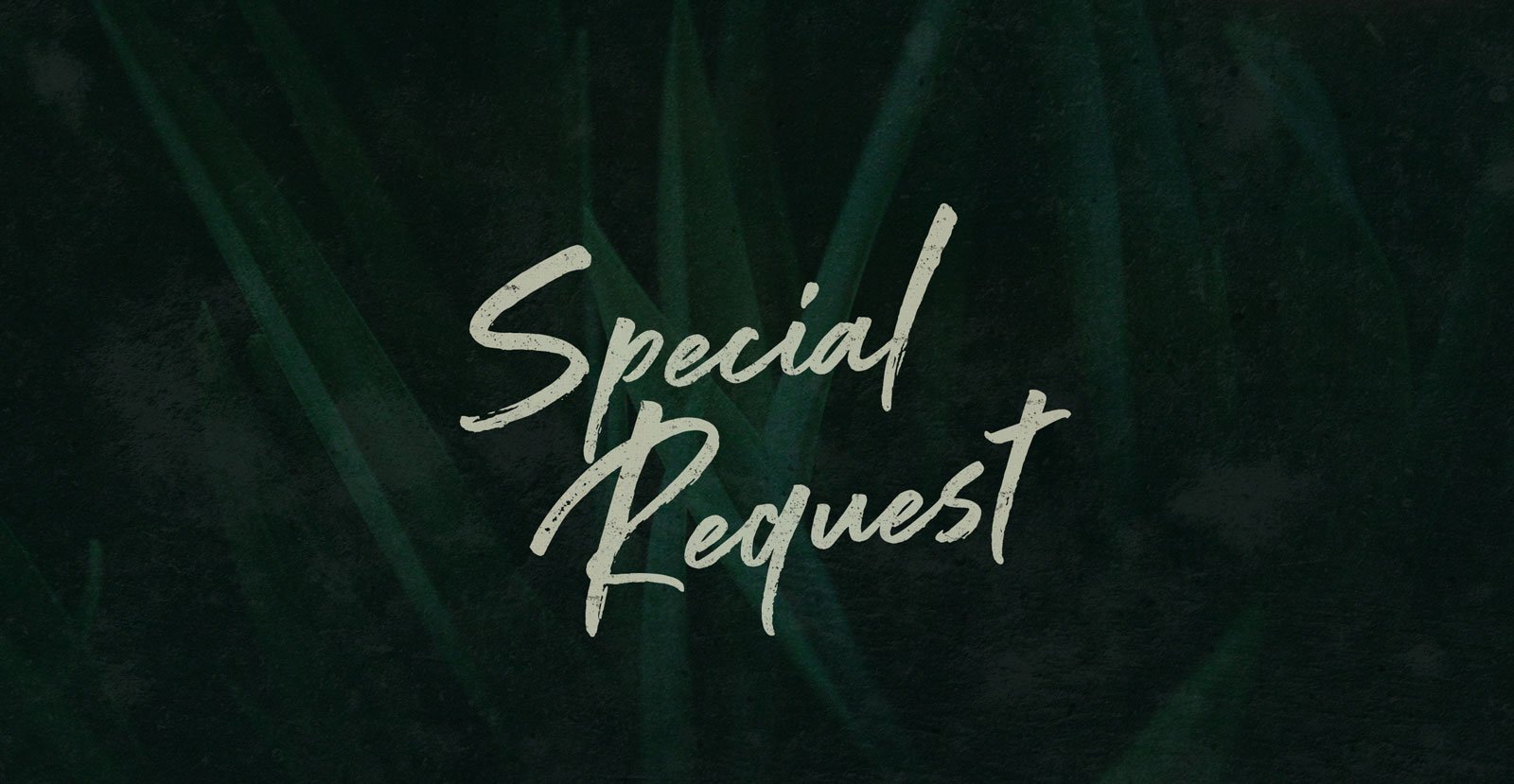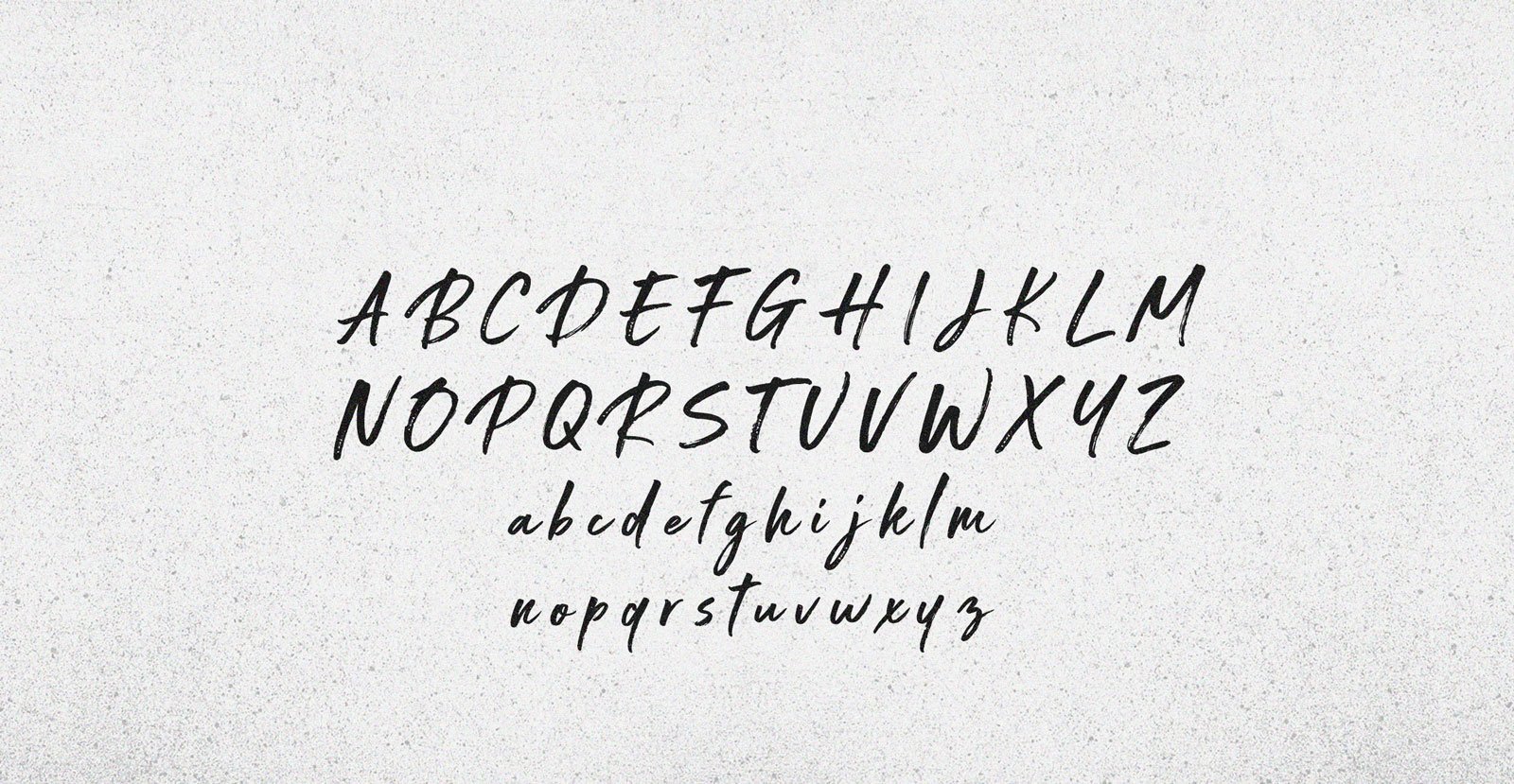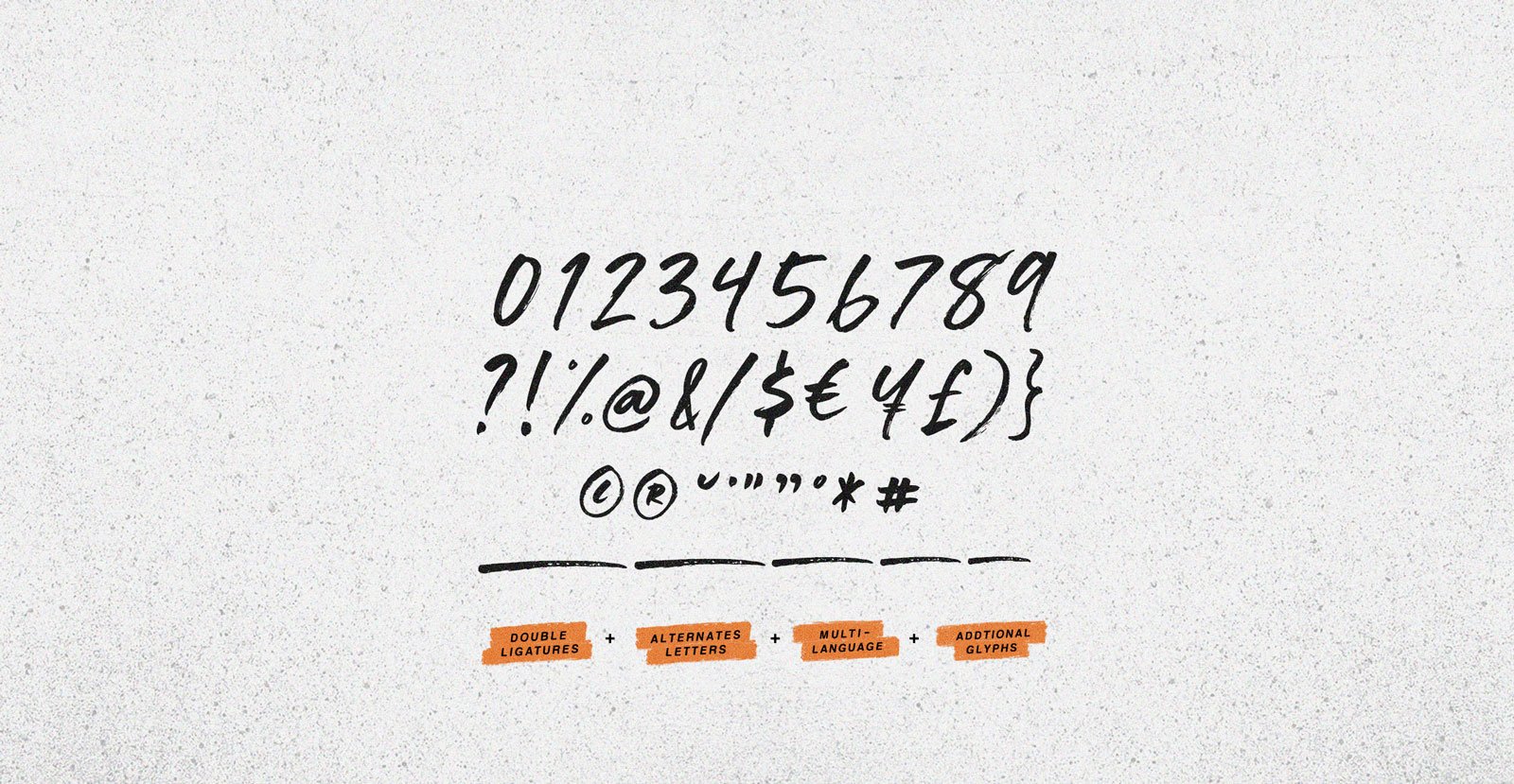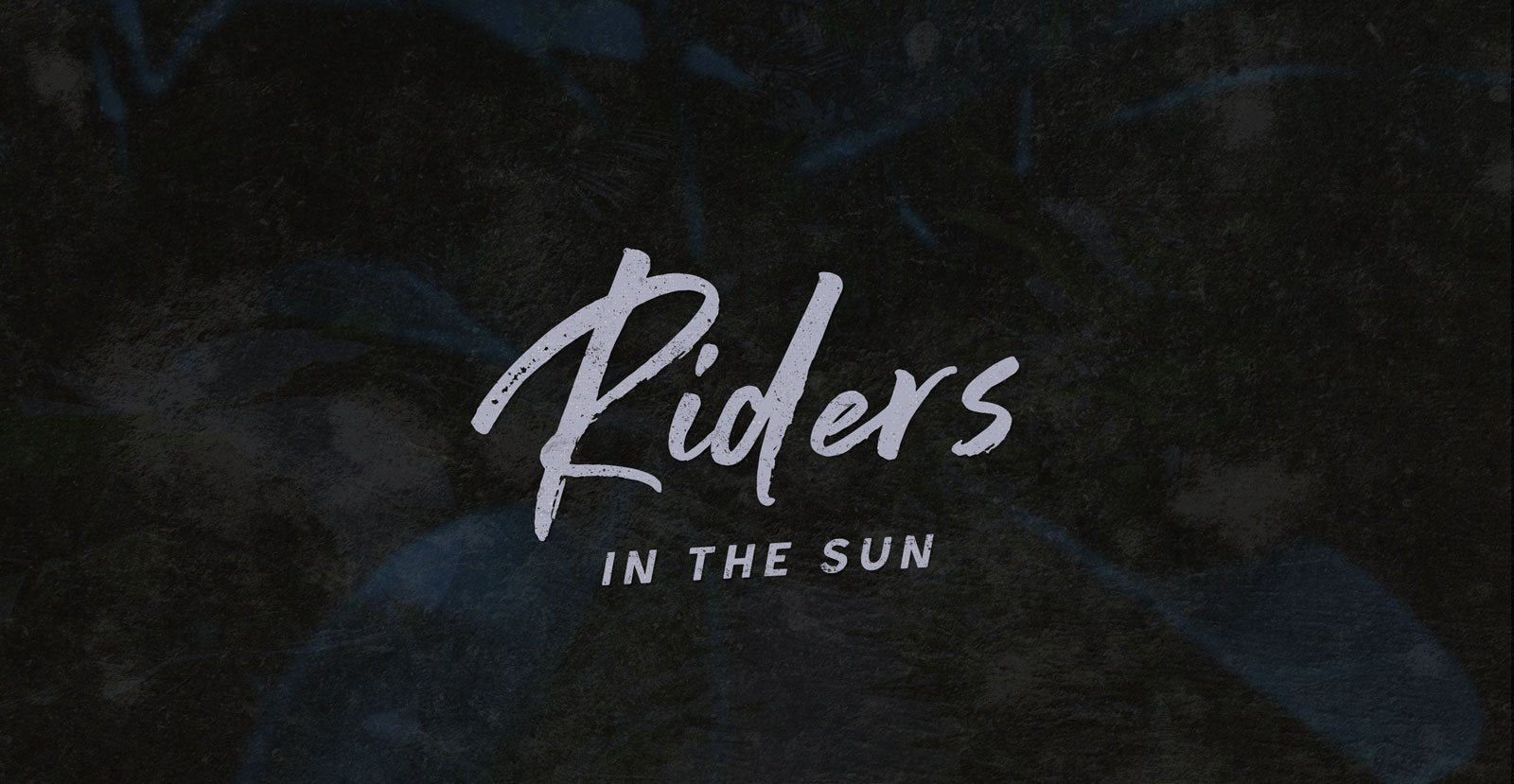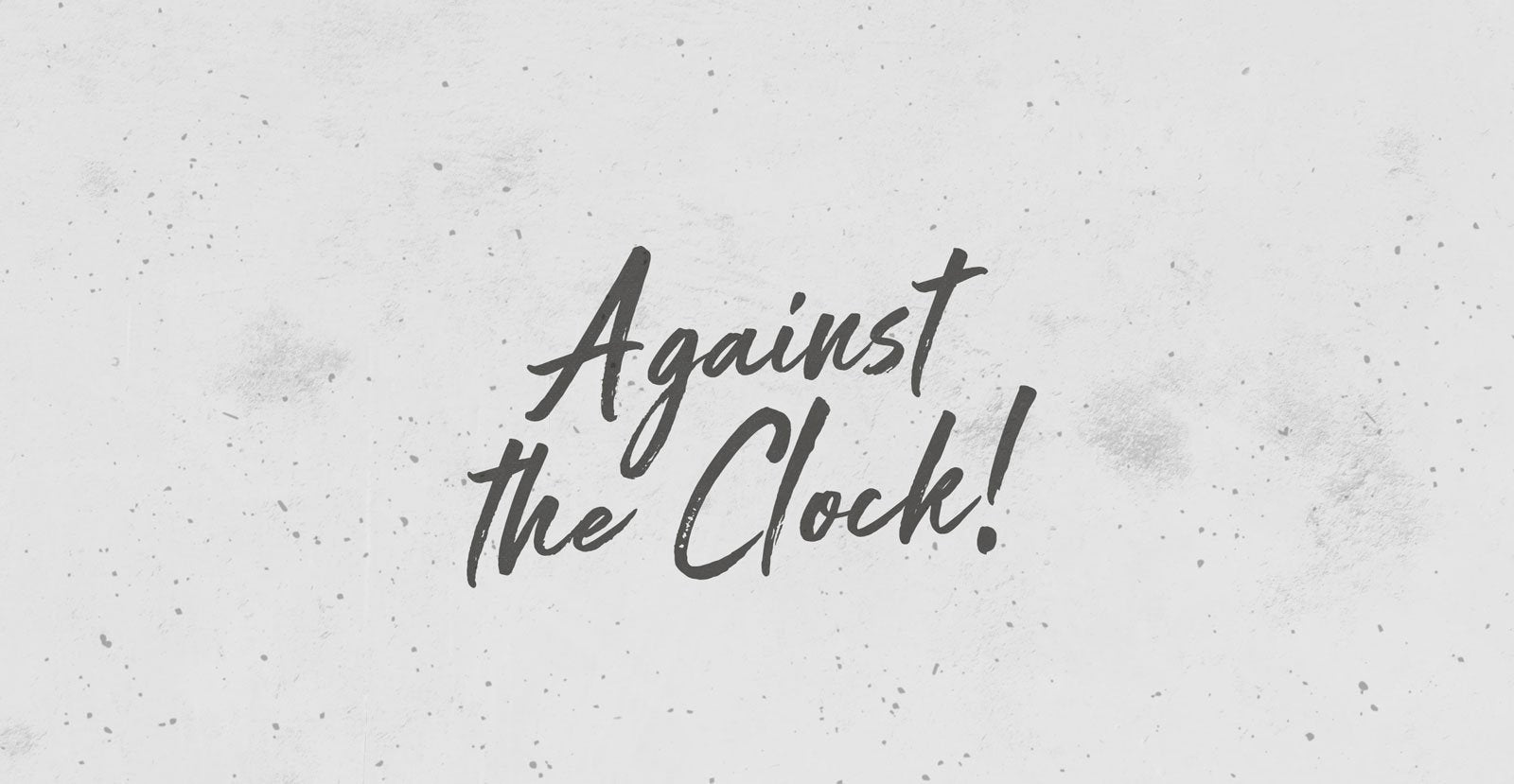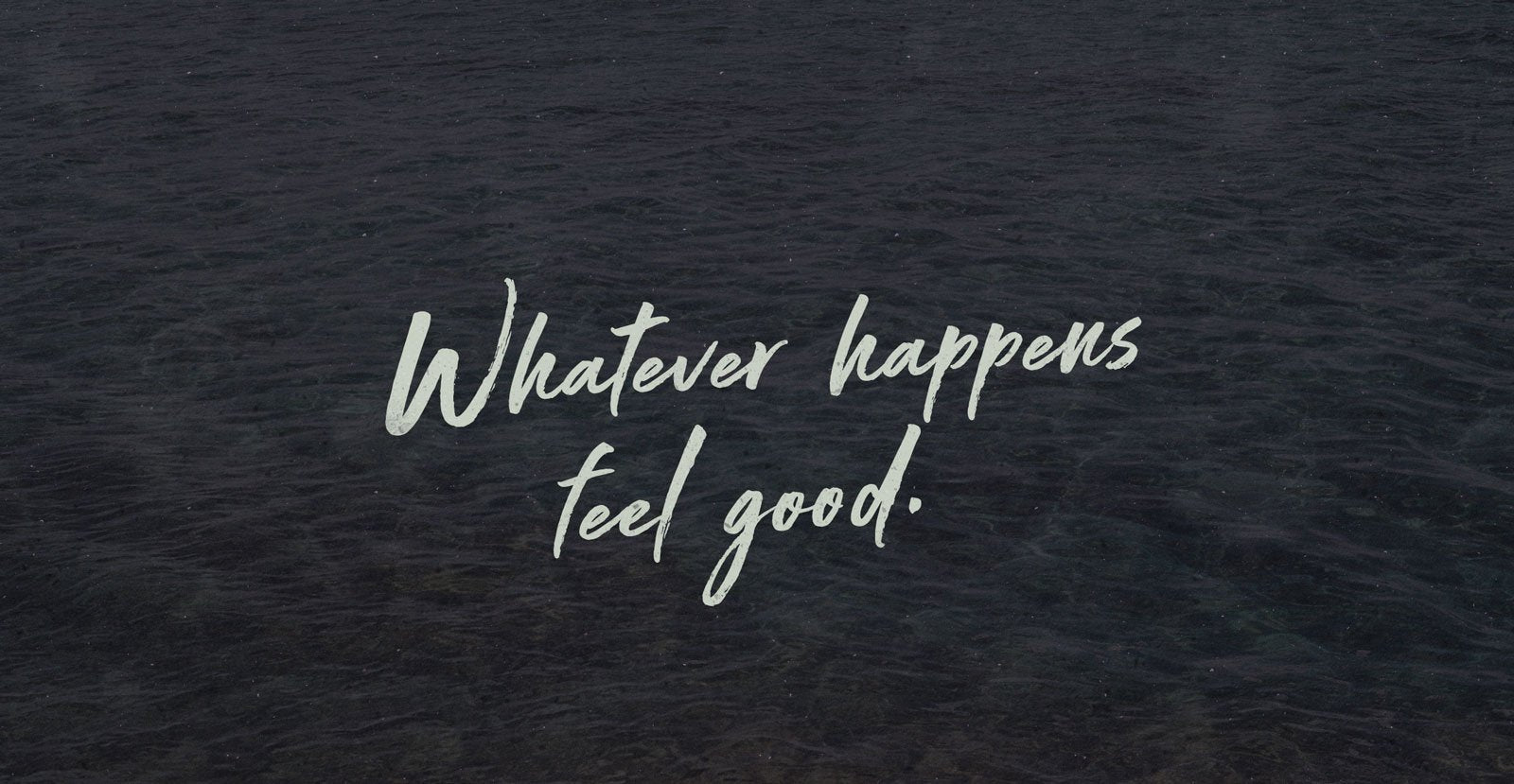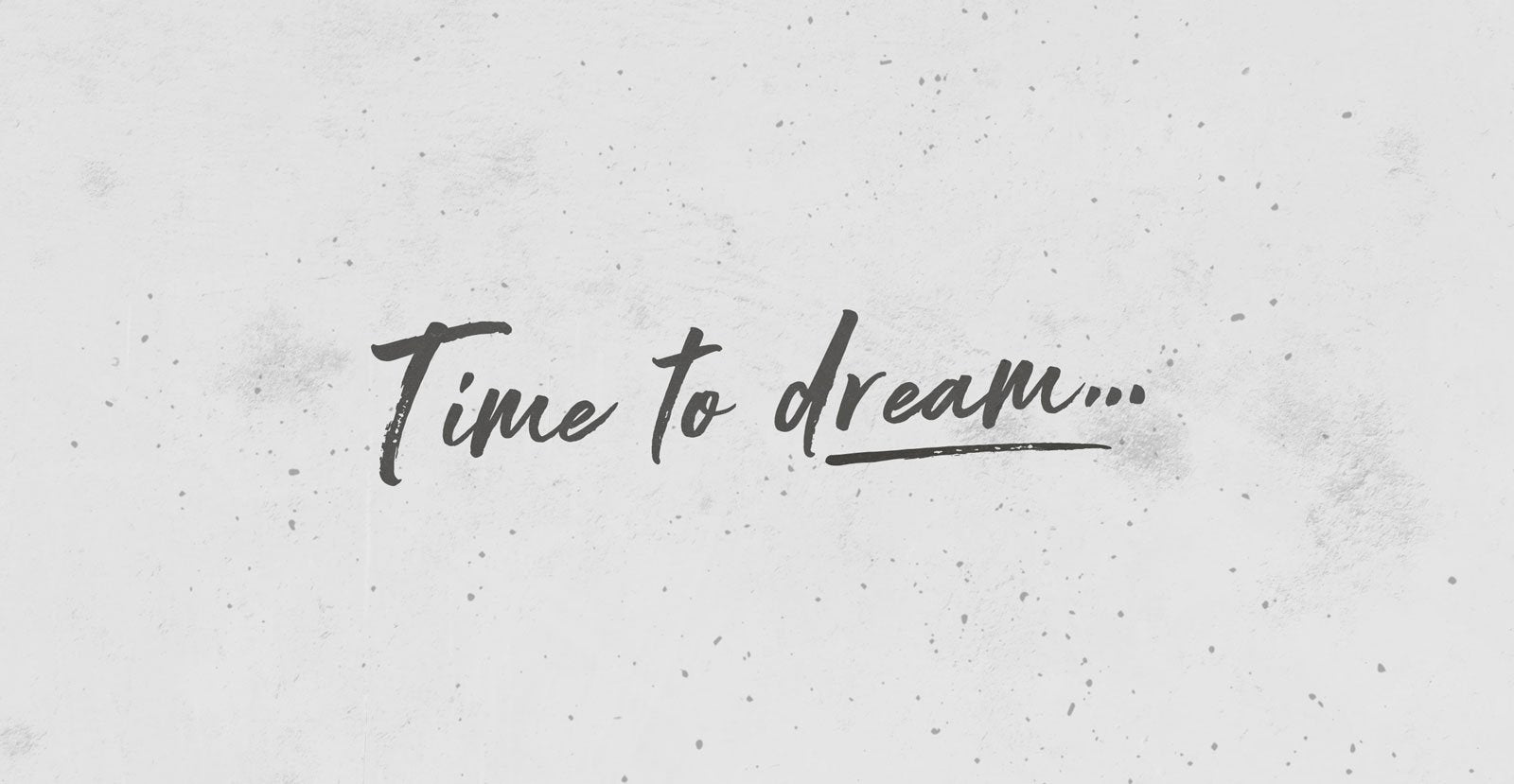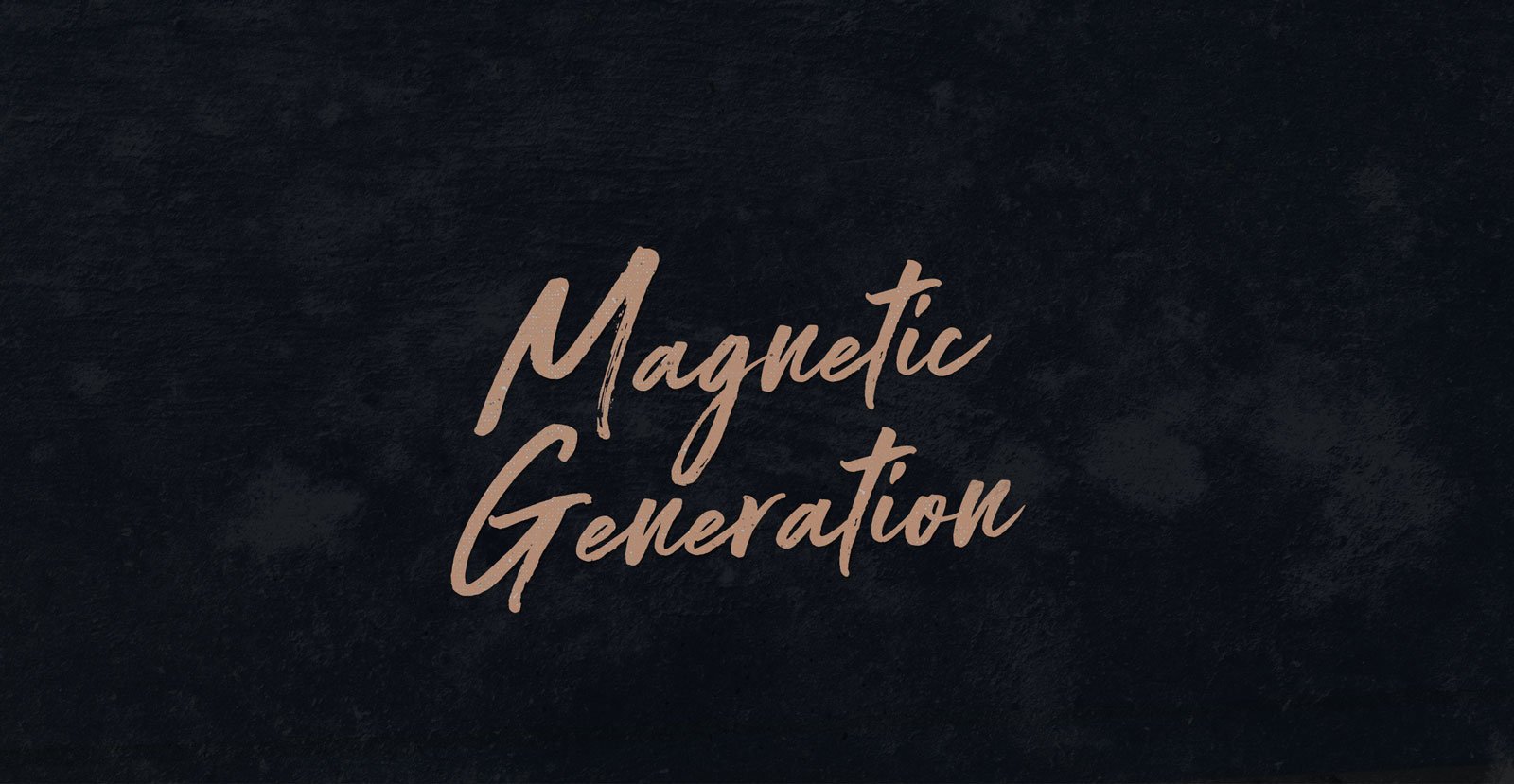
Special Request
Clean, feathers preened. Tickled, like you had someone Special Request you. Must be special, to be that subject. Must be subjective, on the receiving end of a sentence; fate predicated on the opinion of an object.